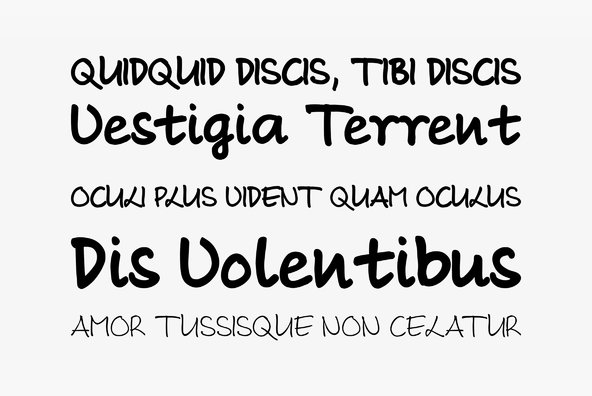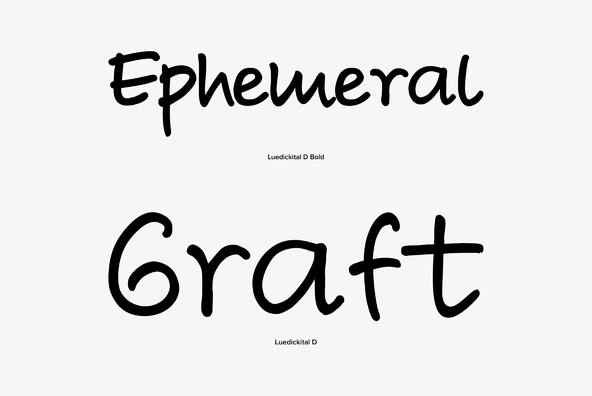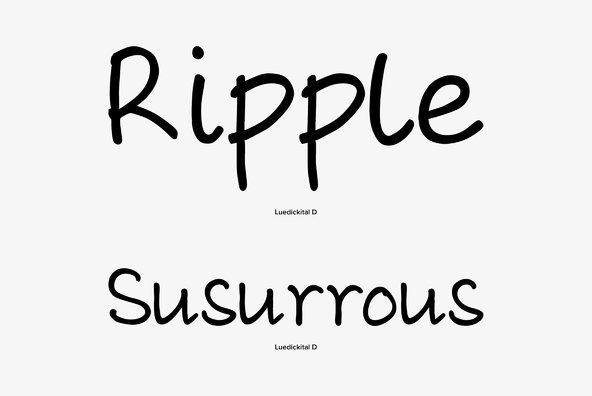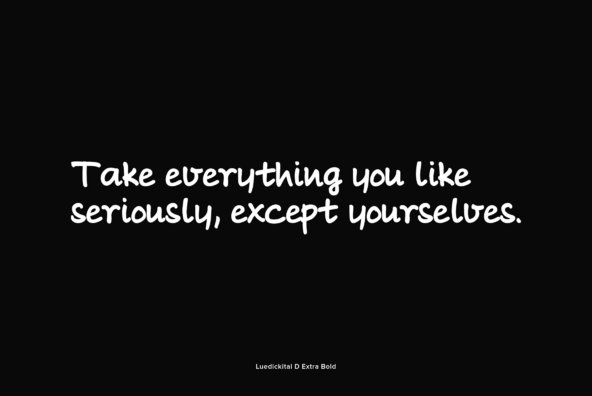
Luedickital
Ludickital is a handwriting script design. Ludicke wasn´t satisfied with existing scripts which he though of too stylish and uneven. He simply digitized his own handwriting and developed a regular and a bold. Designed by Frank Luedicke in 2002.